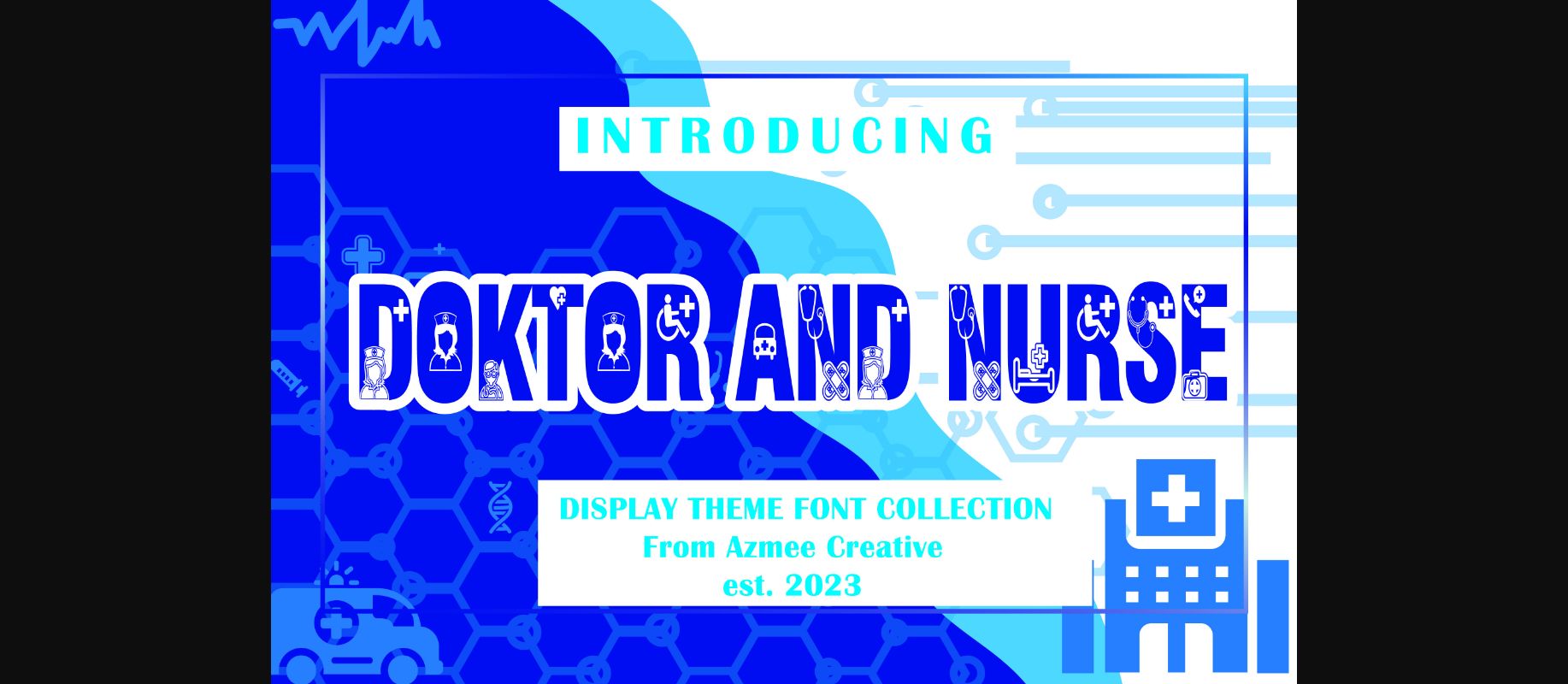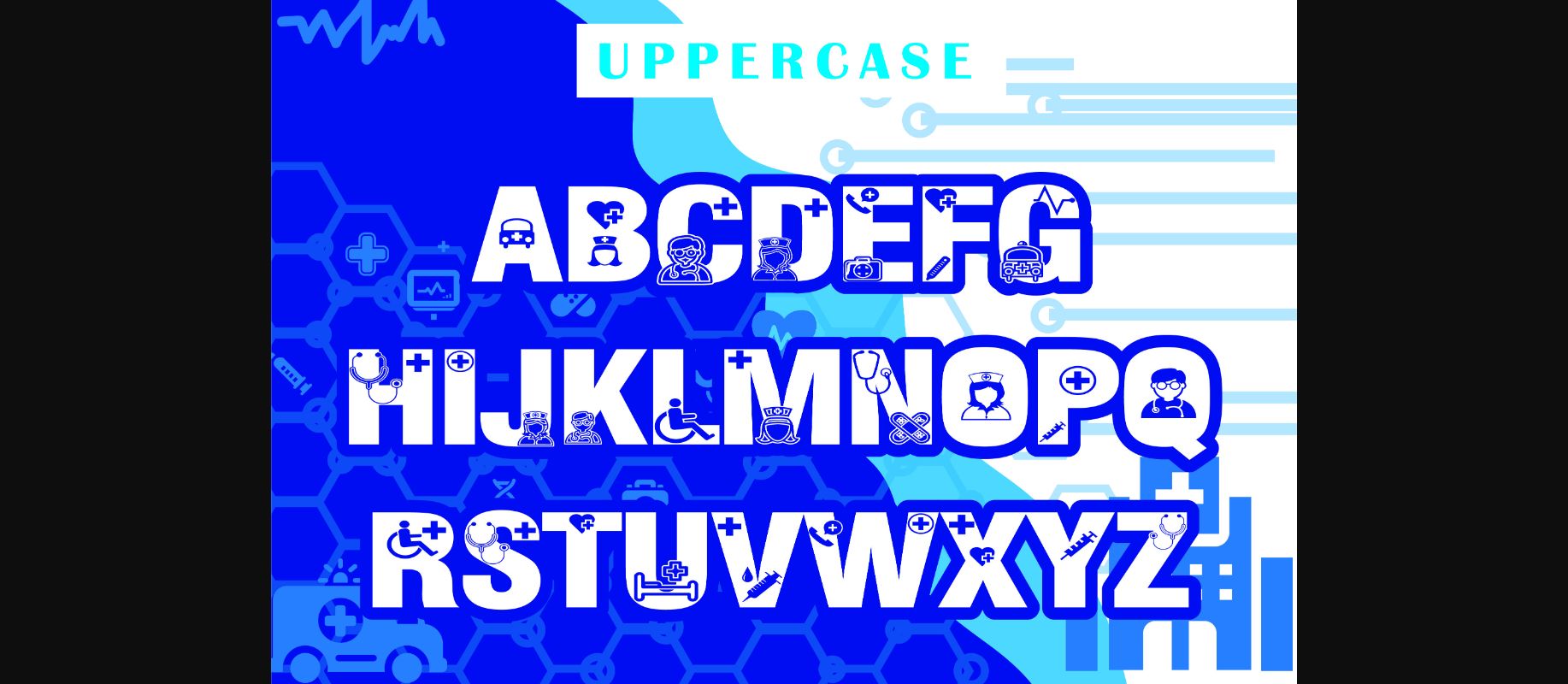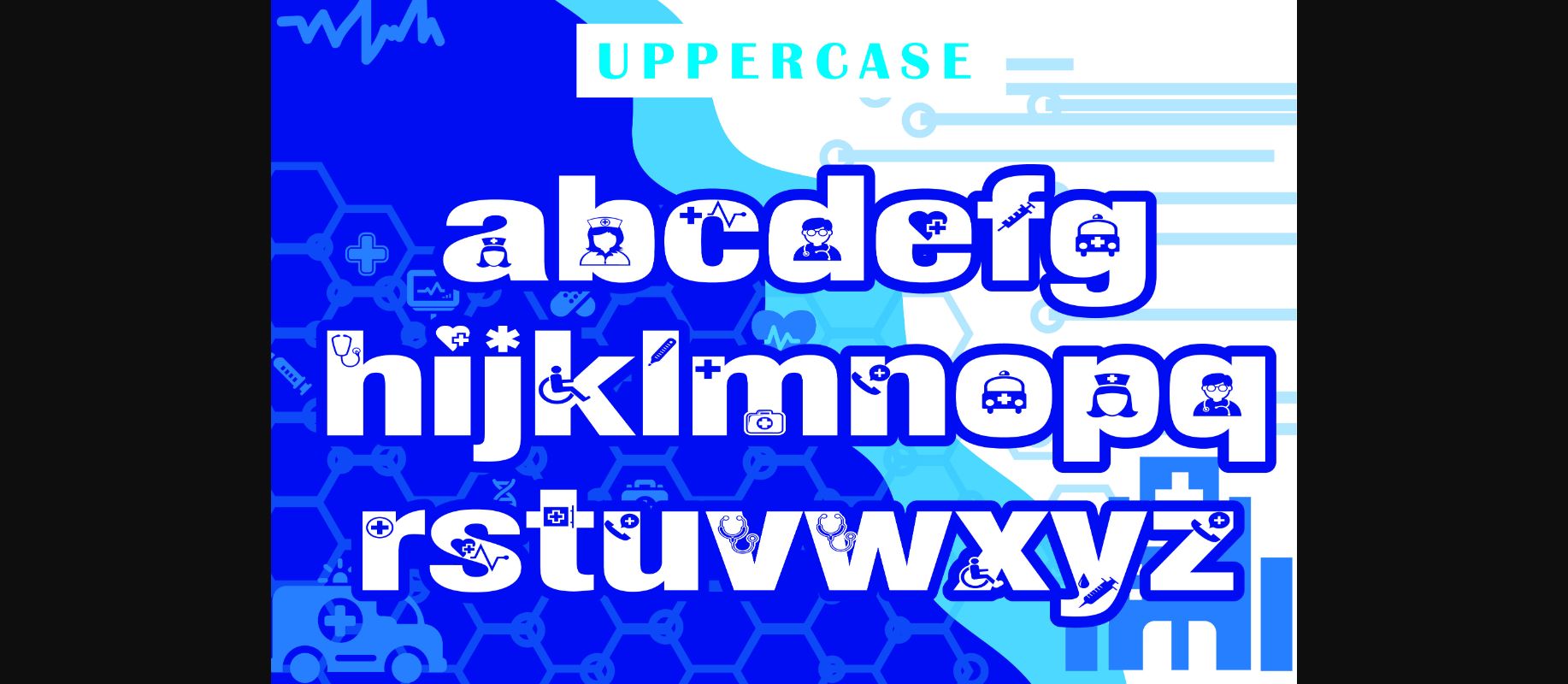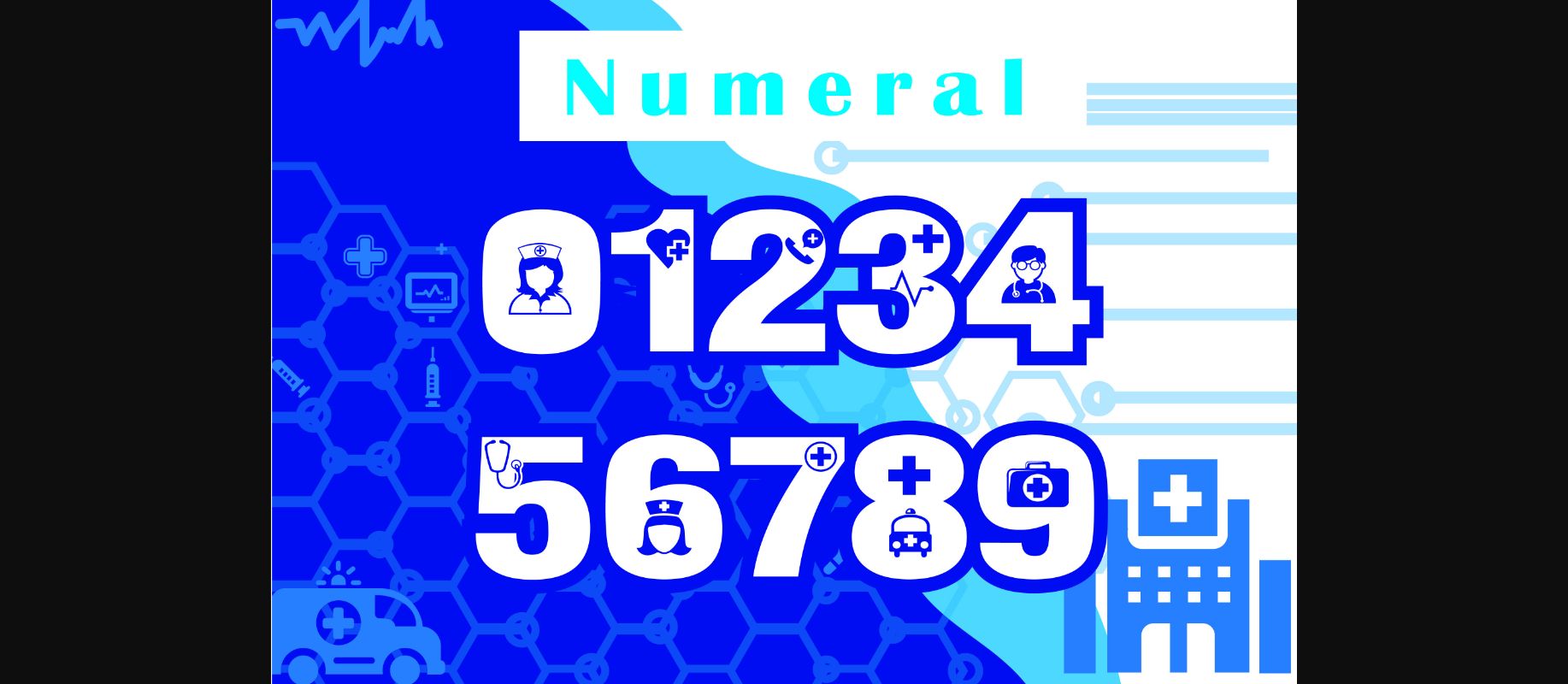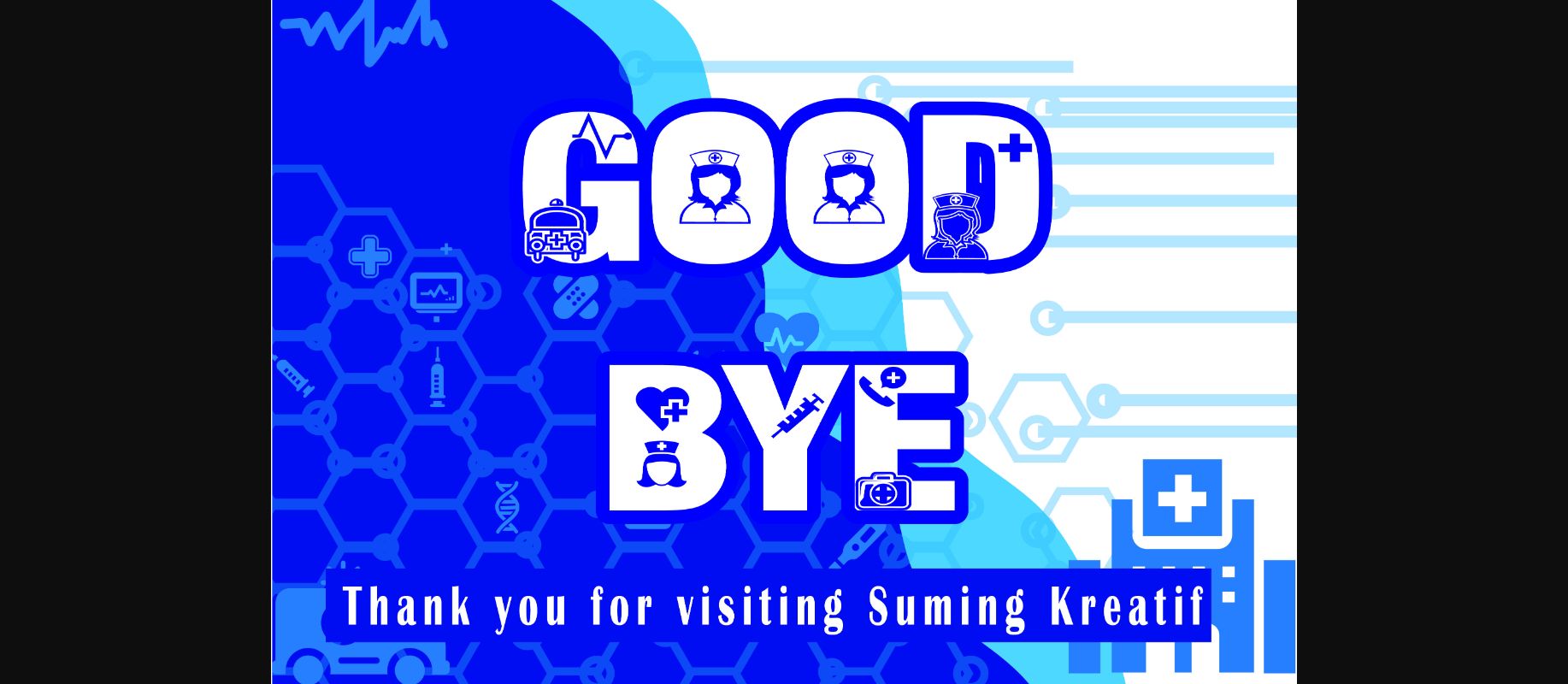
Doktor and Nurse Font
About Doktor and Nurse Font
Doktor and Nurse is a thick lettered and incredibly unique decorative font. It can be used for various design ideas, particularly those related to doctors, nurses, and the healthcare staff in general. This font is PUA encoded which means you can access all of the glyphs and swashes with ease!